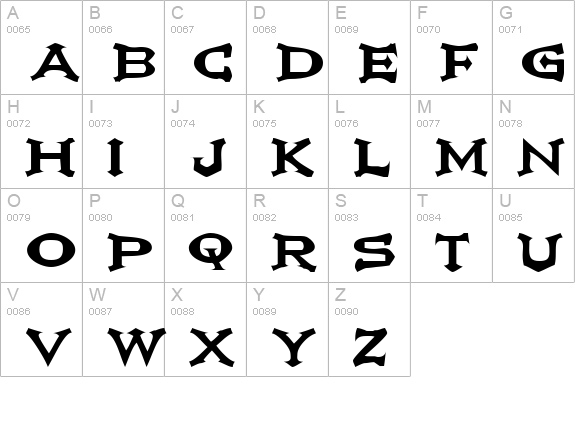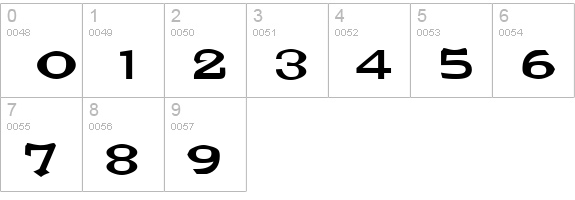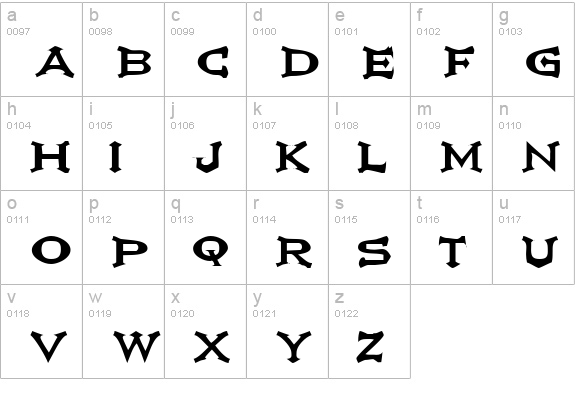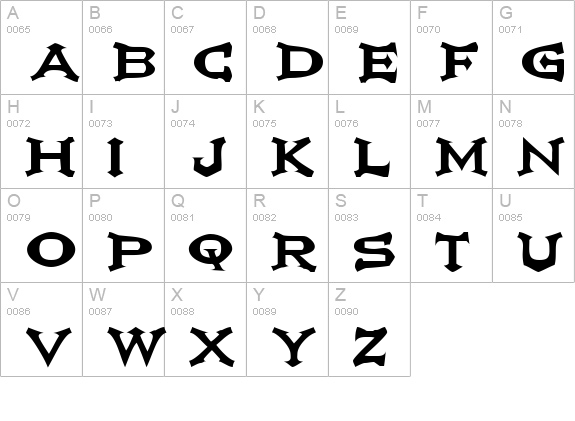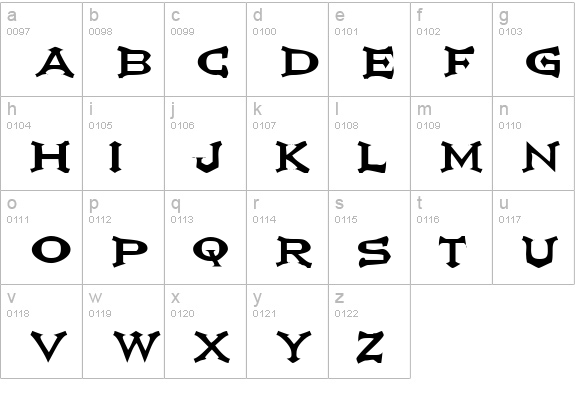
Ikarus Vulture Font Details
Ikarus Vulture font is a stunning typeface that exudes an air of sophistication and elegance. With its sharp edges and unique design, this font is sure to captivate and engage any audience. The Ikarus Vulture font boasts a perfect balance between modernity and tradition, making it suitable for a wide range of projects. Whether you are designing a logo, creating a poster, or even crafting a website, Ikarus Vulture font will elevate your design to new heights. Its clean lines and intricate details make it a versatile choice, allowing you to convey your message with clarity and style. One of the best things about Ikarus Vulture font is that it is free! Yes, you read that right. This amazing font is freely available to download at FontsMarket.com. You can unleash your creativity without any constraints or limitations. Whether you are a professional designer or a hobbyist, Ikarus Vulture font is the perfect tool to bring your ideas to life. The versatility of Ikarus Vulture font is further enhanced by its wide range of weights and styles. From bold and impactful to subtle and elegant, this font has it all. You can experiment with different combinations and create a unique visual identity that perfectly represents your brand or project. Not only is Ikarus Vulture font visually stunning, but it is also highly legible. Each character is meticulously crafted to ensure optimal readability, even at small sizes. This makes it a great choice for various applications, including body text, headlines, and captions. In conclusion, Ikarus Vulture font is a must-have for any designer or creative individual. Its sleek and modern design, coupled with its versatility and legibility, make it a valuable asset for any project. And the best part? It's completely free! So don't miss out on this incredible opportunity to download Ikarus Vulture font at FontsMarket.com and take your designs to the next level.